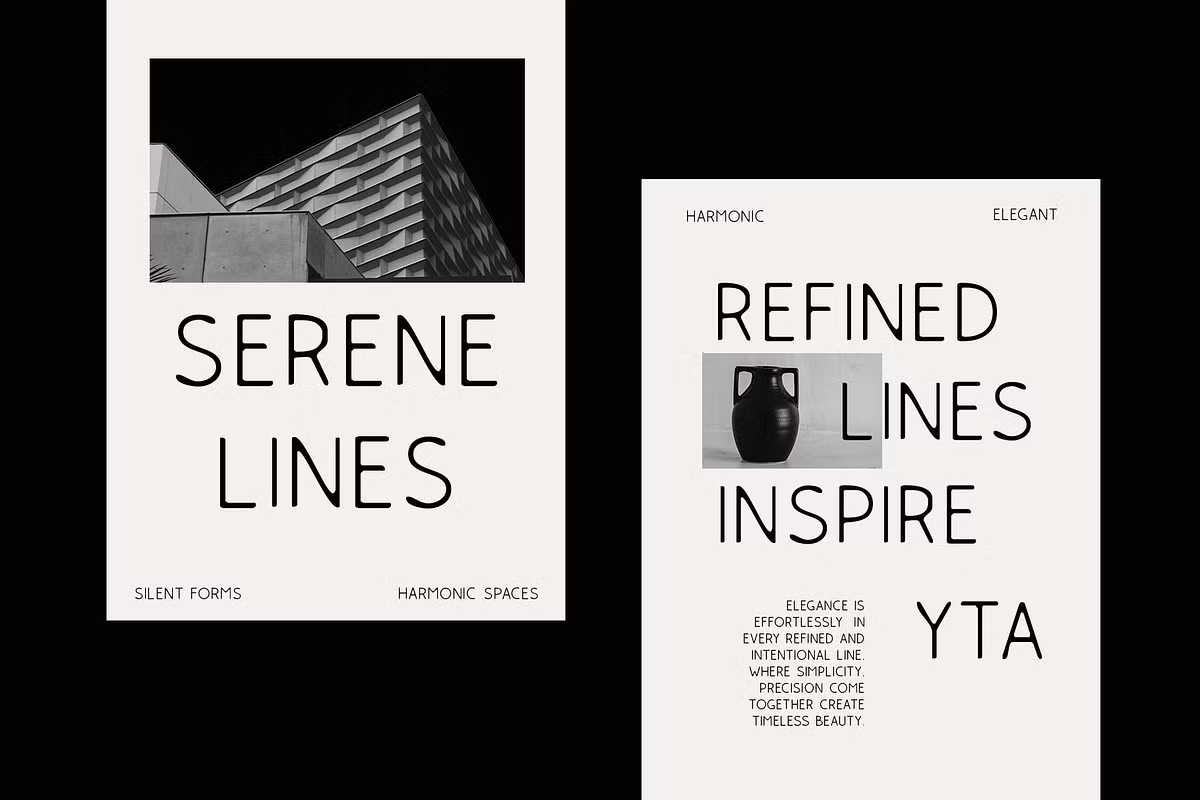
Rolves Blur Font
Rolves Blur is a modern sans-serif font with a clean, minimalist, and geometric design, ensuring a sleek and contemporary look. Its sharp and balanced letterforms achieve clarity without compromising precision and symmetry.
Perfect for modern branding, high-tech visuals, futuristic themes, and artistic layouts, Rolves Blur meets the demands of cutting-edge design. Whether used in posters, editorial headlines, album covers, or digital media, this font delivers an avant-garde, trendy aesthetic that keeps artwork feeling fresh and current.